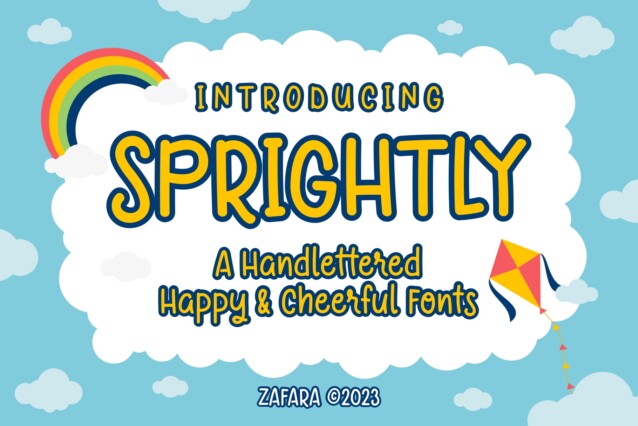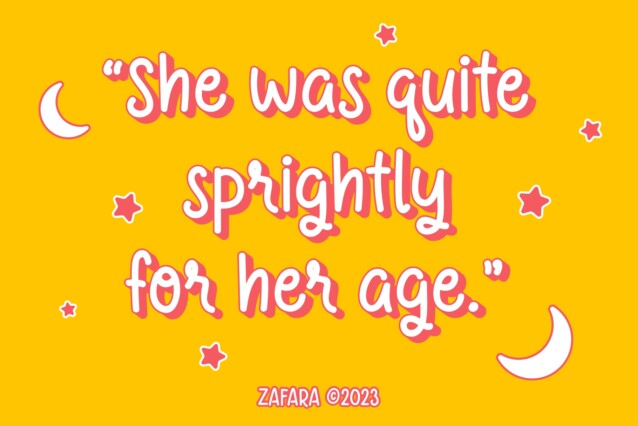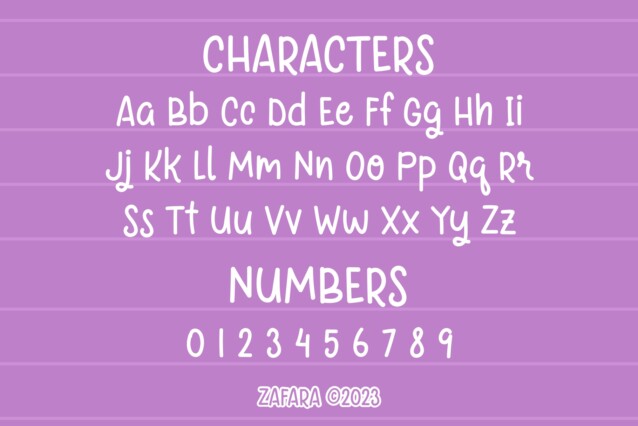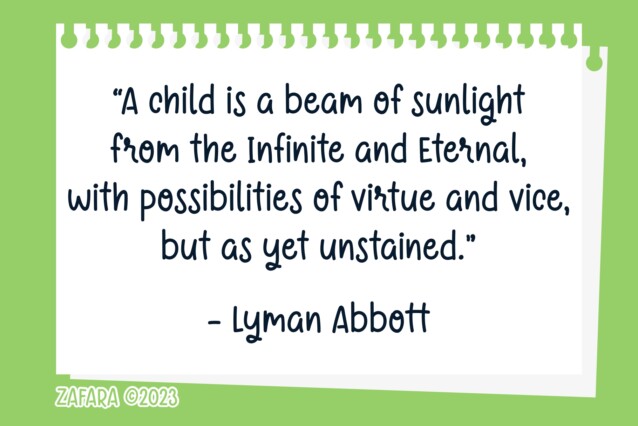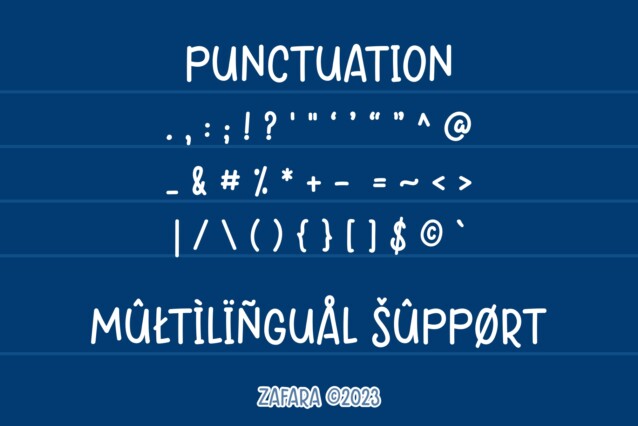
Sprightly Display Font
Sprightly Display Font is a font designed to evoke feelings of joy, happiness and cheerfulness. This font can be used in children’s products, marketing materials, and other contexts where a cheerful mood is desired. However, it can basically be used with a wider range of themes depending on your design needs.
Zafara